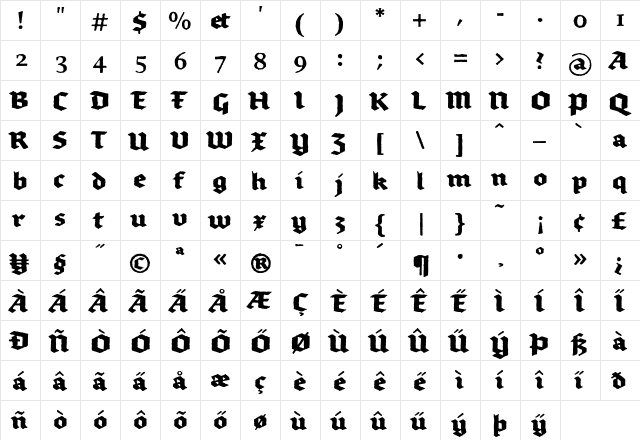
BrokenscriptBoldRough Regular
Design Context for BrokenscriptBoldRough Typeface
BrokenscriptBoldRough embraces imperfection — its rough, textured character adds raw authenticity to designs that want to feel lived-in and unconventional.
A strong fit for alternative music projects, graffiti-adjacent design, and anything that deliberately resists polish.
Pro Tip: Use BrokenscriptBoldRough at larger sizes where the texture and irregularity of each letterform can be clearly seen — it loses its character at small sizes.